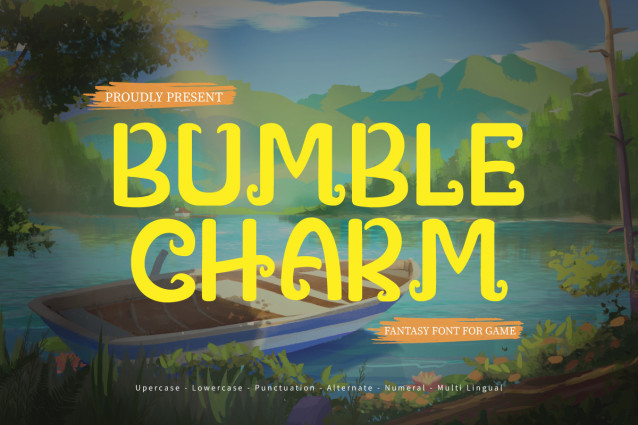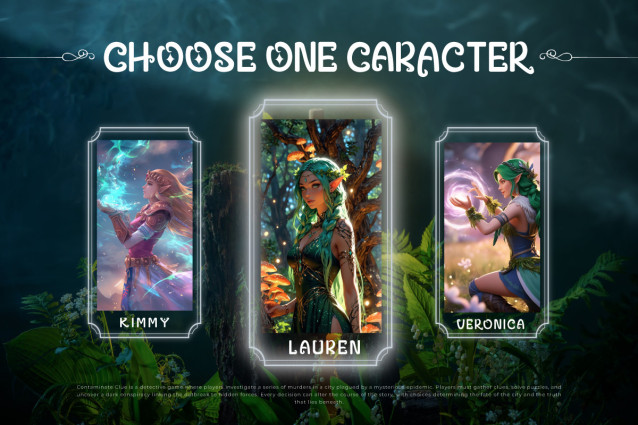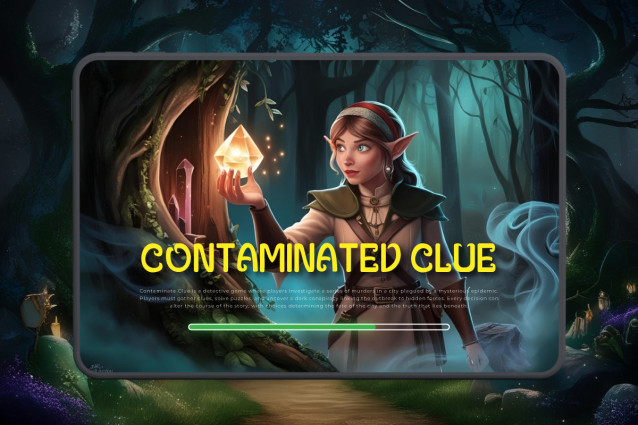
Bumble Charm Font
Bumble Charm Font is a whimsical fantasy font brimming with magic and wonder. Each letter is crafted to transport you into an enchanting world—where fairytales come alive, dreams sparkle, and creativity knows no bounds. With its playful curves, charming strokes, and storybook appeal, Bumble Charm is perfect for children’s books, fantasy games, magical branding, or any project that needs a touch of wonder.
Whether you’re designing a mystical logo, a spellbinding poster, or an imaginative packaging design, Bumble Charm will infuse your visuals with a delightful fairytale vibe. Let your typography cast a spell and bring your fantasy to life with Bumble Charm.